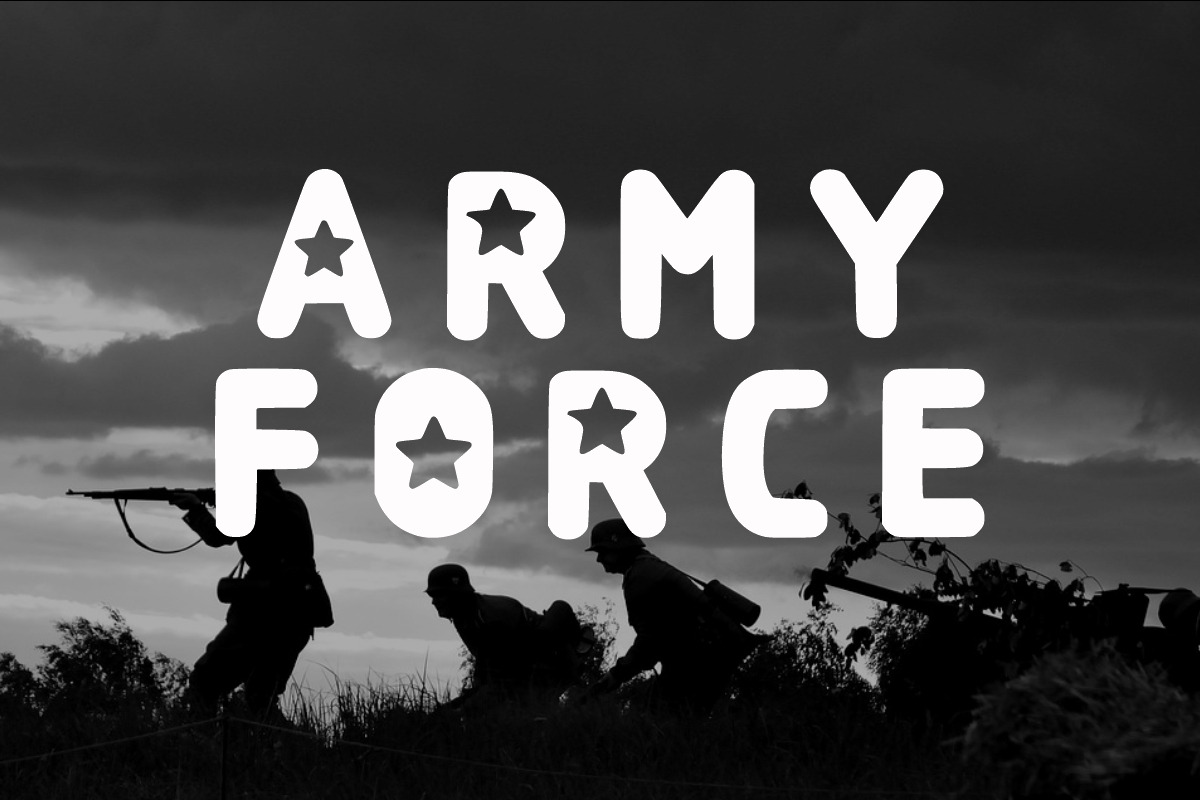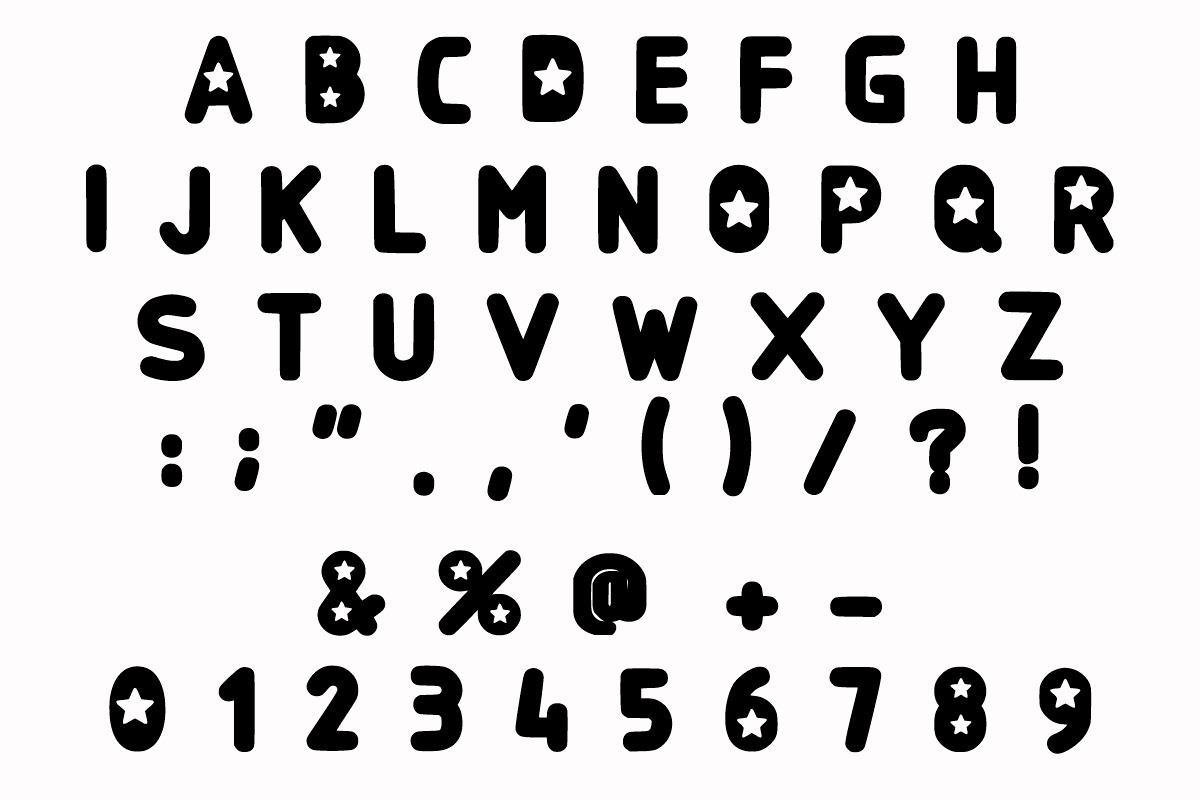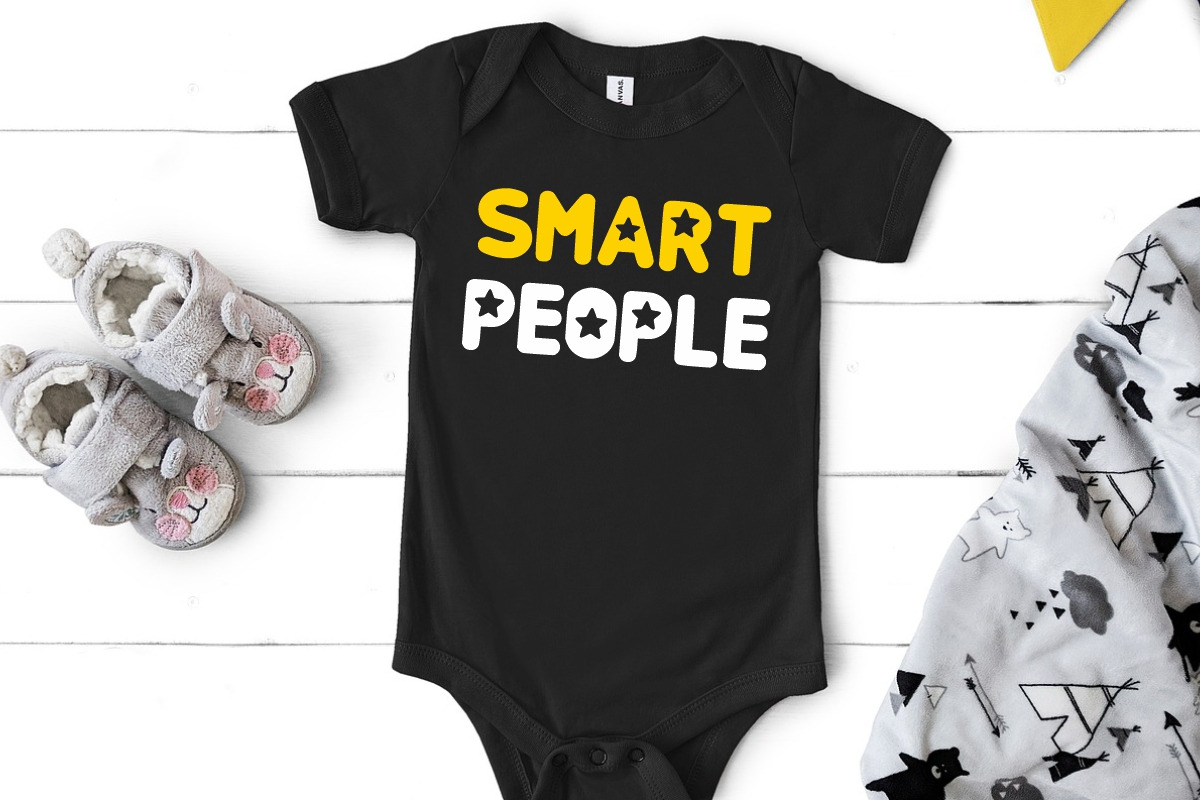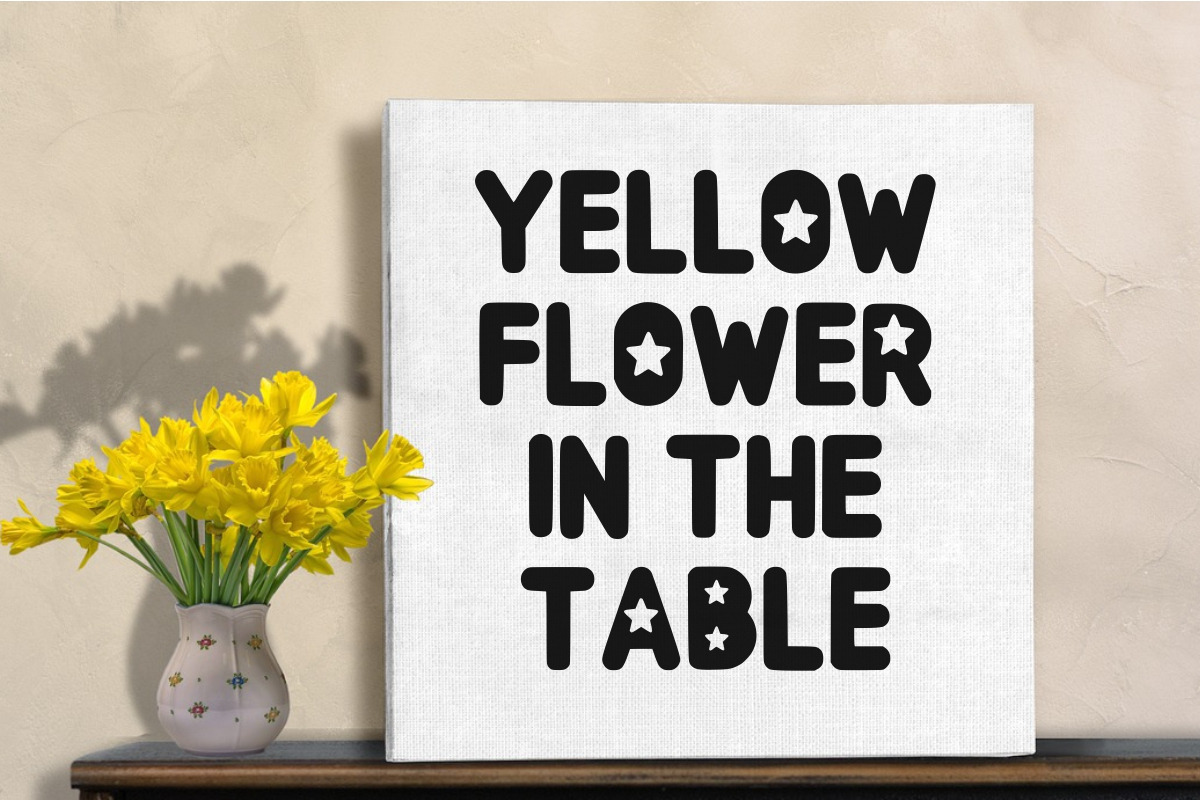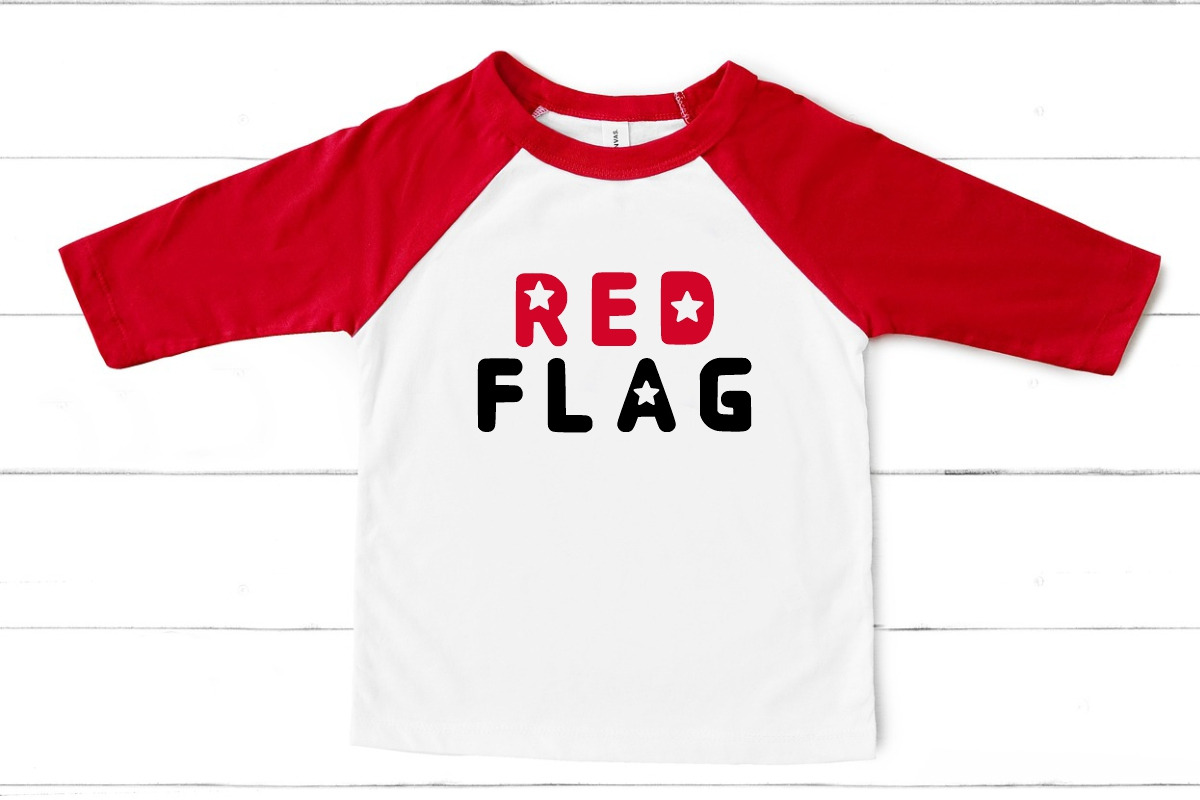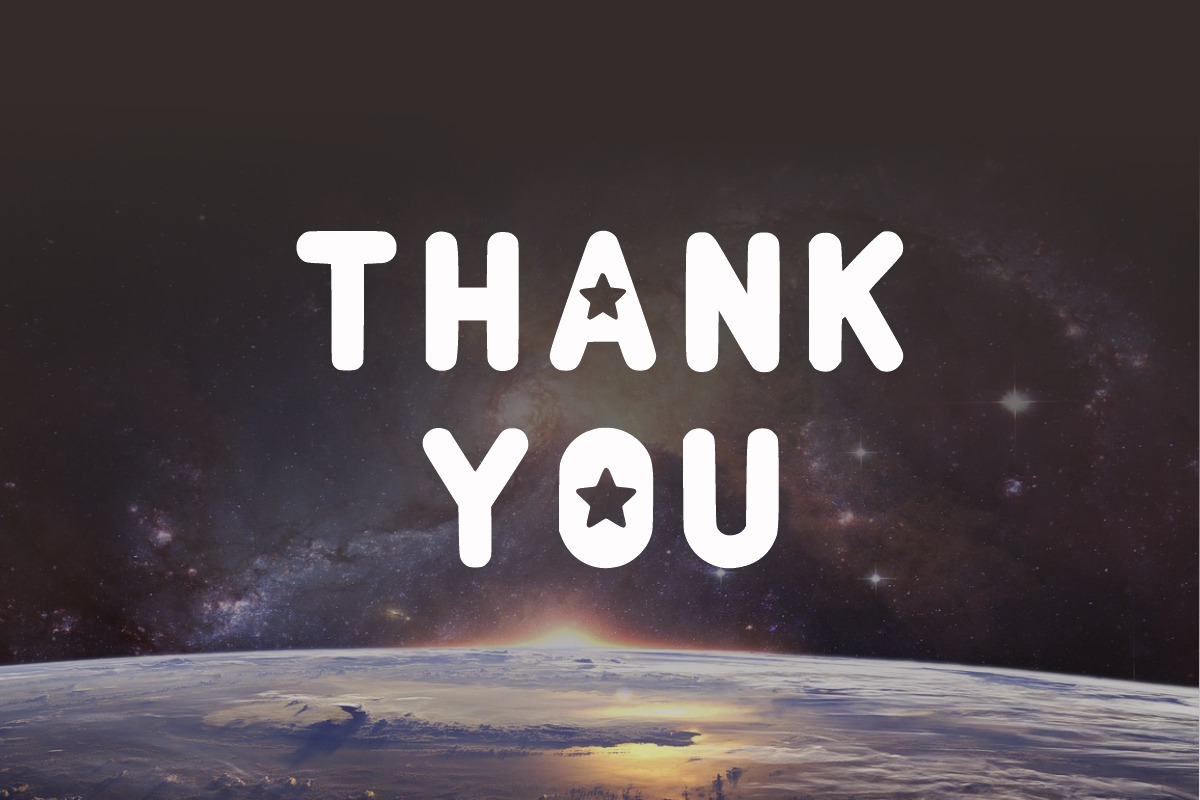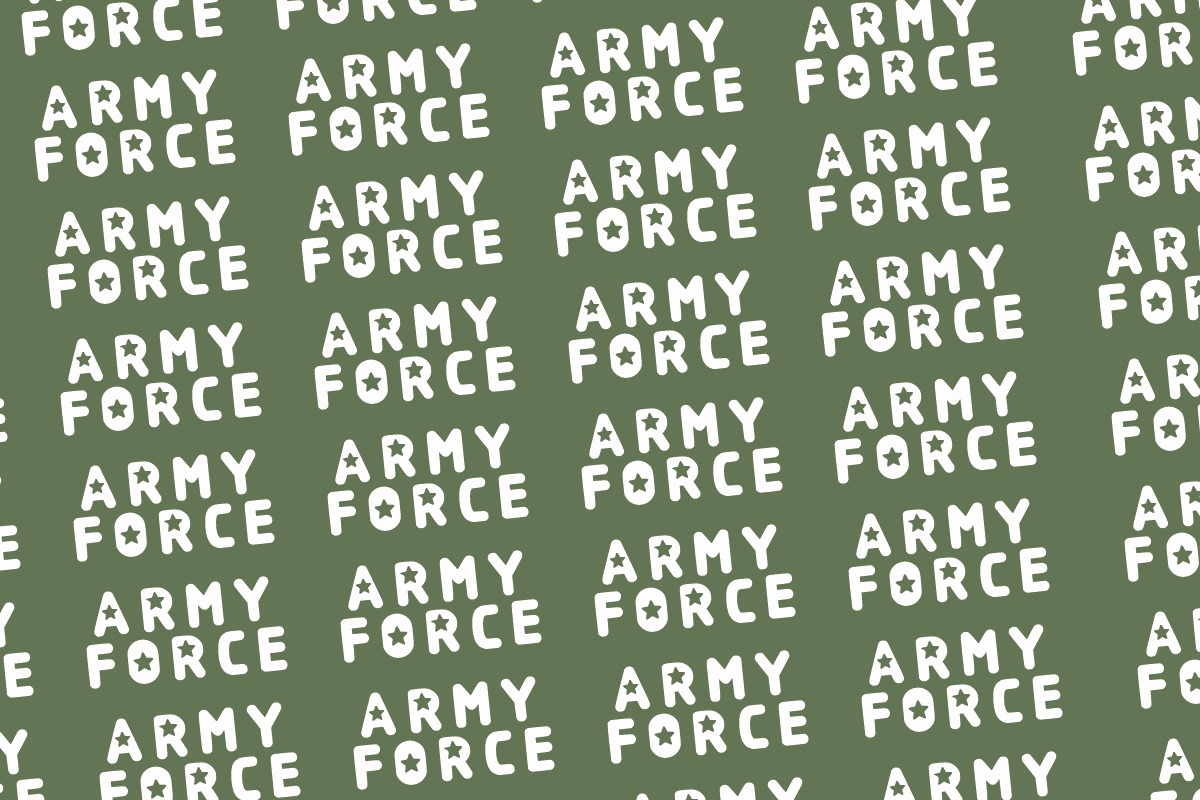
STAR BOY
Star Boy is a fun and bold display font with star shape elements. It is suitable for any winter and holiday branding project, product packaging, invitation, quote, t-shirt, label, poster, text effect, label and logo that you wish to develop.